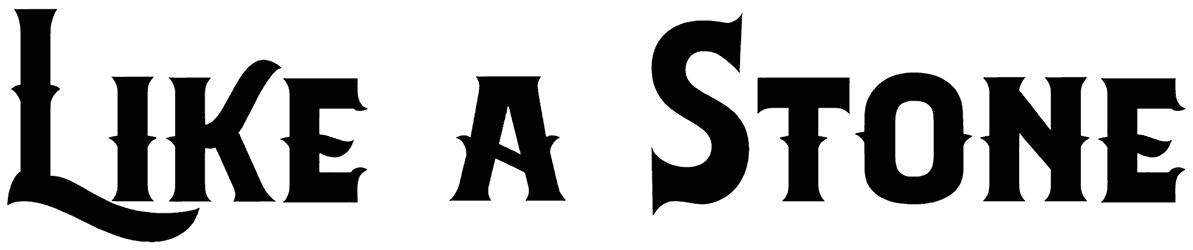
Like A Stone Font
Searching for a classic font to use in your project? “Like A Stone” is a safe bet. Use this modern gothic font in your next poster, card, or digital design project for the best results.
Hello, LikeAStone Vintage Font is a font from Sheillatype, this font is inspired by vintage letters, victorian era, masculine character, cool thick, and highly recommended for t shirt designs, logos, classic or vintage posters, and others. do not hesitate to provide support with comments, and if you have questions about our font, contact us via email. thanks.